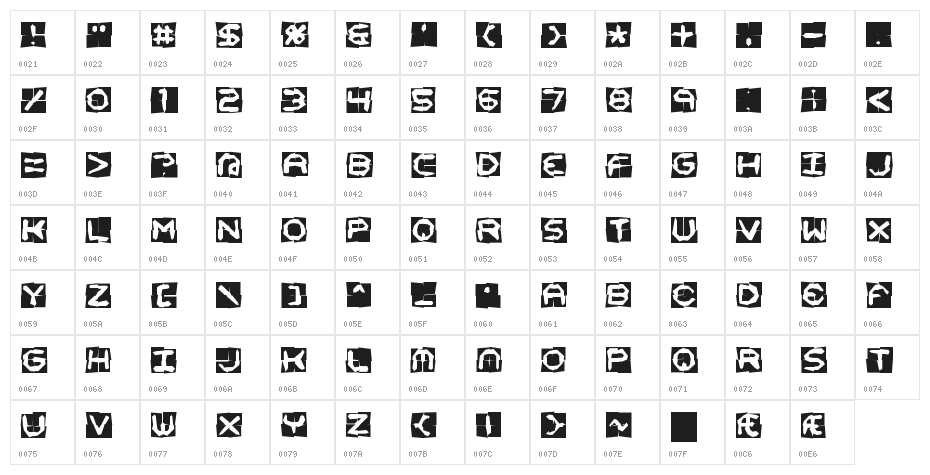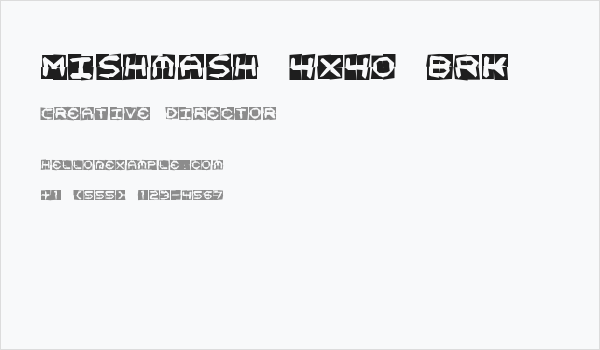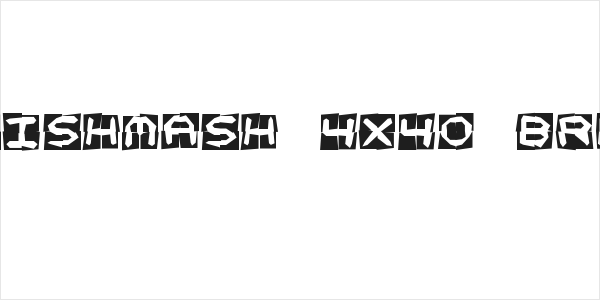
Mishmash 4x4o BRK Font
Mishmash 4x4o BRK Description
This font features a highly distinctive and fragmented style, with each character appearing as if it has been cut and pasted together from various pieces. The letters are bold and enclosed in irregular, jagged shapes, creating a chaotic and dynamic appearance. The use of high contrast between the black background and white letterforms enhances the visual impact, making it stand out prominently. The overall design is unconventional and artistic, suitable for projects that require a bold, edgy, and modern look.
| Overall Style | Modern, Edgy |
| Proposed Projects | Ideal for album covers, posters, street art designs, and any project that seeks to convey a sense of rebellion or modern art. |